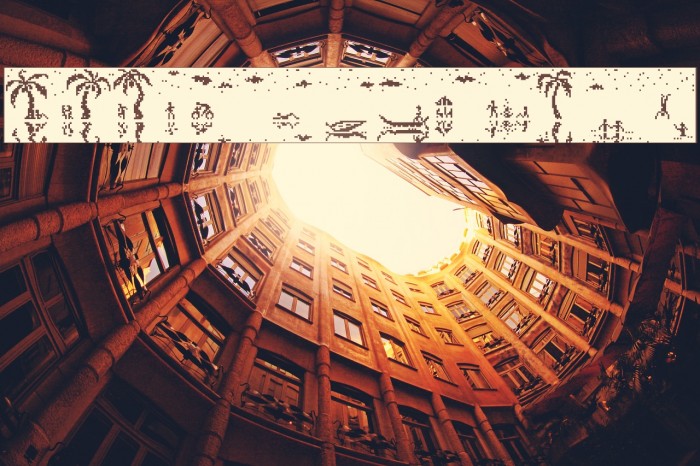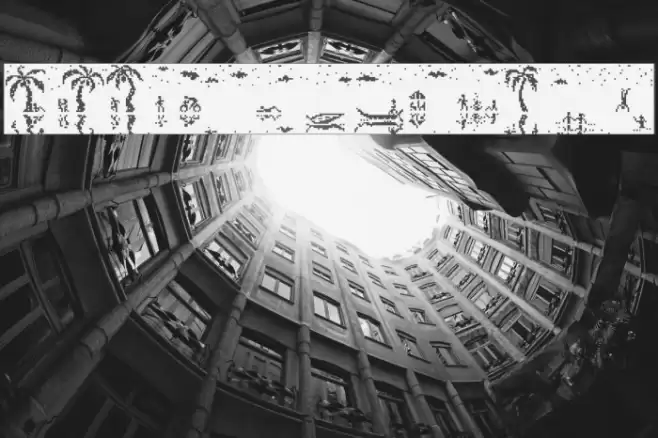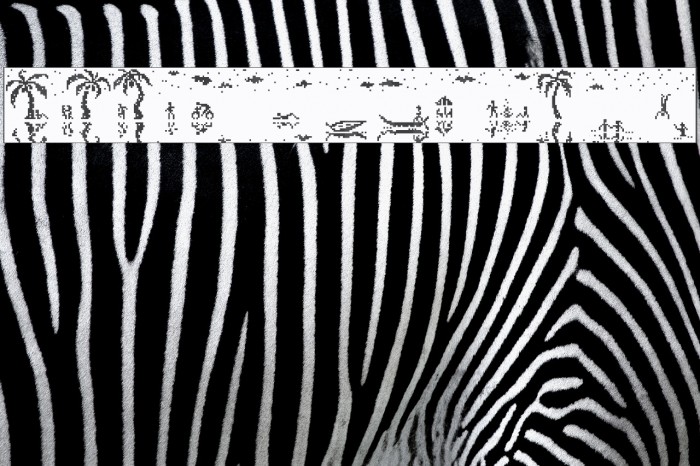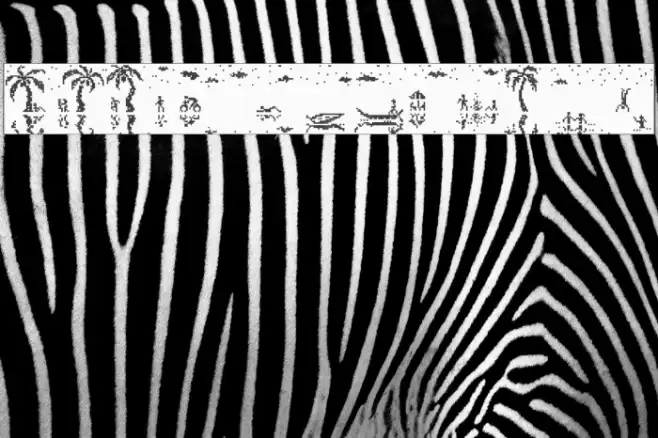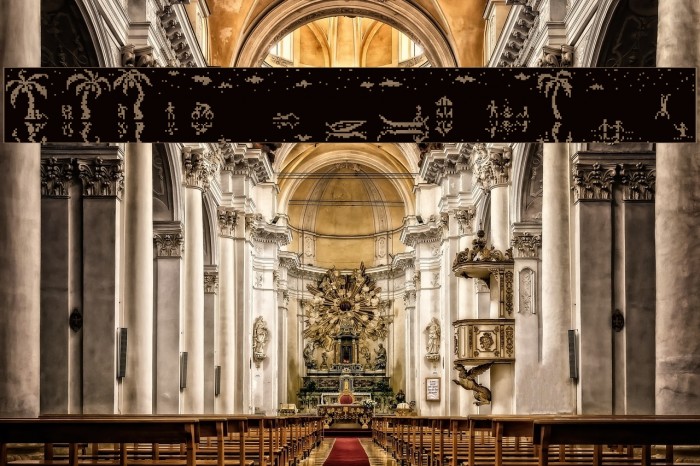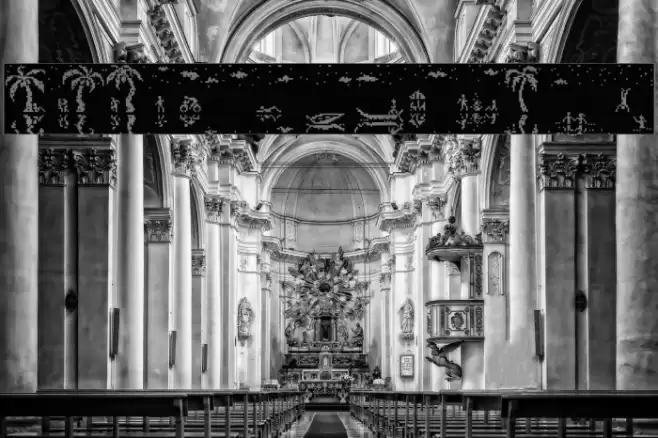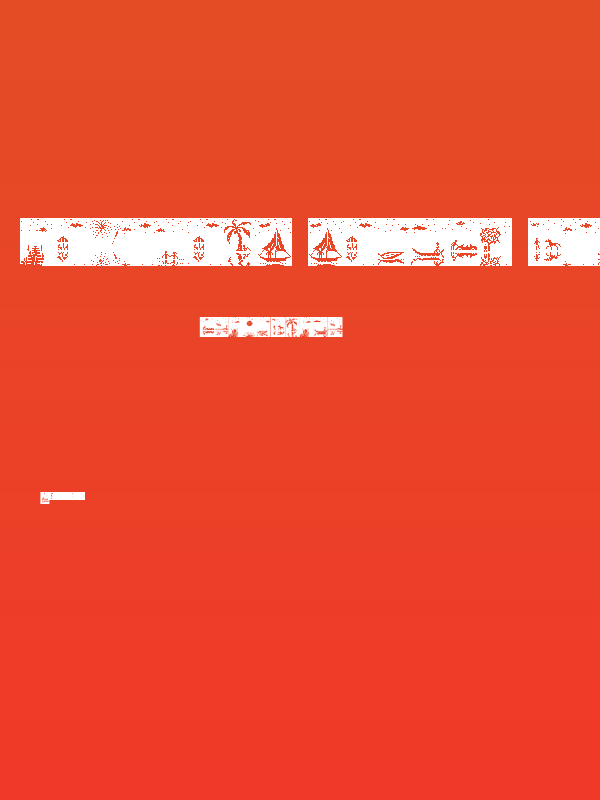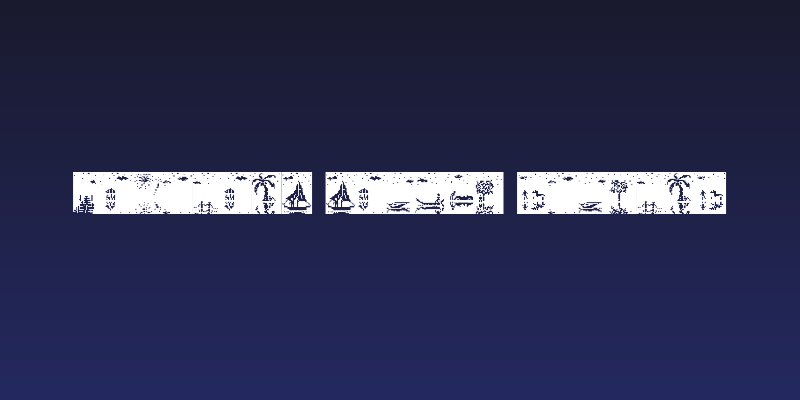
Pixelian Nights Regular Font
Pixelian Nights Regular Description
A highly decorative, pixel-art style font featuring intricate night-time beach and cityscape scenes, with each character represented by a unique miniature illustration. The design uses a monochrome palette and pixel-level detail, evoking a retro digital aesthetic.
Pixel-art decorative font with nightscape illustrations from Uncategorized fonts.
- Proposed Projects: Retro-themed posters, video game titles, digital art, event flyers, creative branding.
- Overall Style: Decorative, Retro, Pixel Art
- Use Case: Logos, Headlines, Posters, Themed graphics